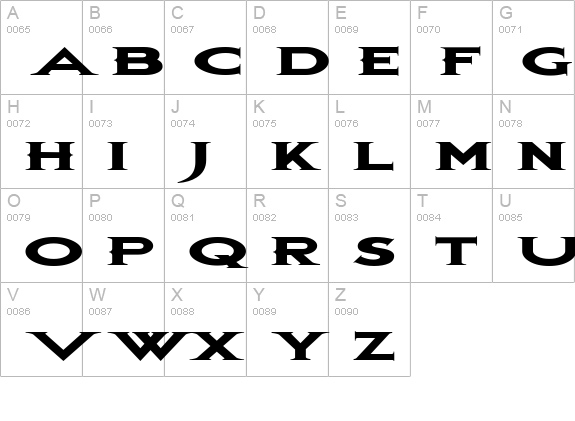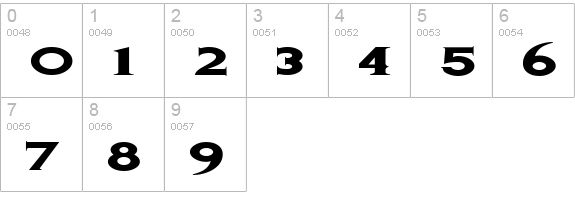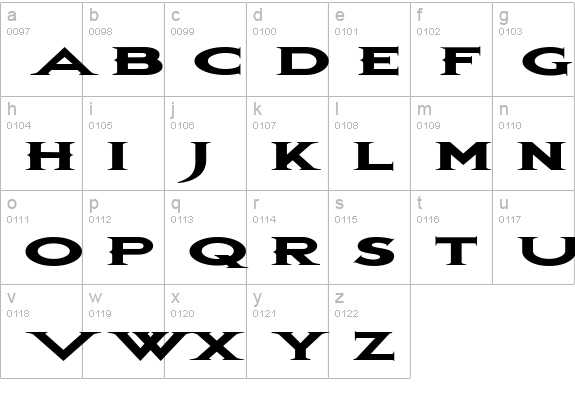
BonJovi Font Details
BonJovi font is a bold and stylish typeface that exudes a sense of modernity and sophistication. With its sleek lines and unique curves, this font is perfect for making a statement in your designs. Whether you're creating a logo, poster, or any other creative project, BonJovi font will add a touch of elegance and flair. The best part? BonJovi font is completely free to download at FontsMarket.com. So you can elevate your design game without breaking the bank. Don't miss out on this opportunity to add a touch of glamour to your projects with the BonJovi font. Download it now and let your creativity shine!